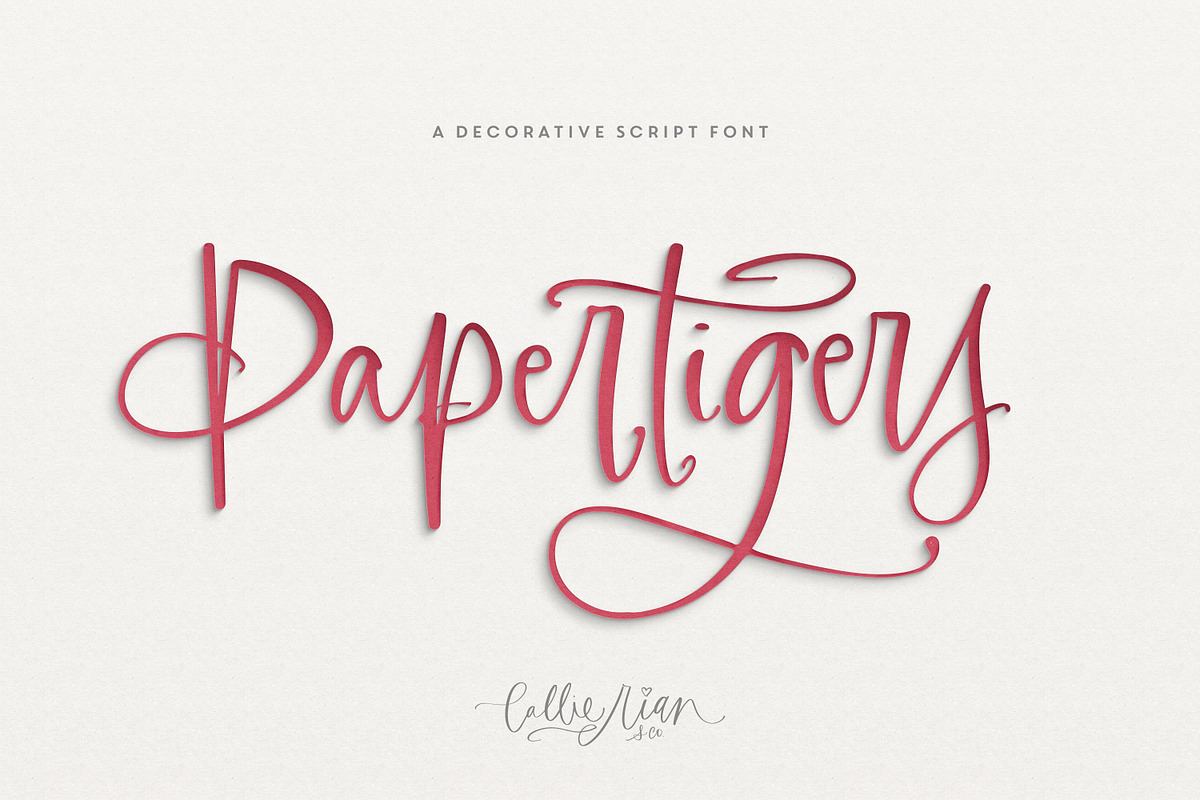
Paper Tigers Script + Florals Free Download
Paper Tigers Script Font + Florals Free Download
Paper Tigers Script Font + Florals Free Download is a beautifully handcrafted script typeface paired with a stunning set of floral illustrations. With its fluid, brush-style strokes and artistic flair, this font is perfect for wedding invitations, feminine branding, product packaging, greeting cards, and social media graphics that call for a personal, creative touch.
The included floral extras complement the script perfectly, allowing you to build elegant, nature-inspired compositions with ease. Paper Tigers Script Font + Florals Free Download blends softness with bold expression—making it a favorite for designers who want their work to feel both organic and impactful.